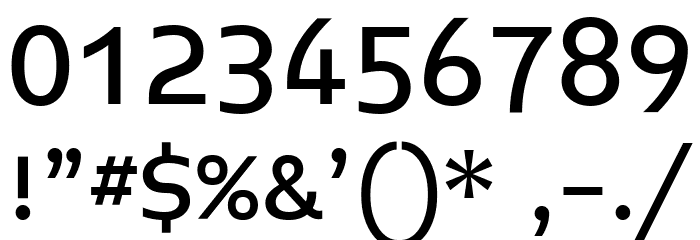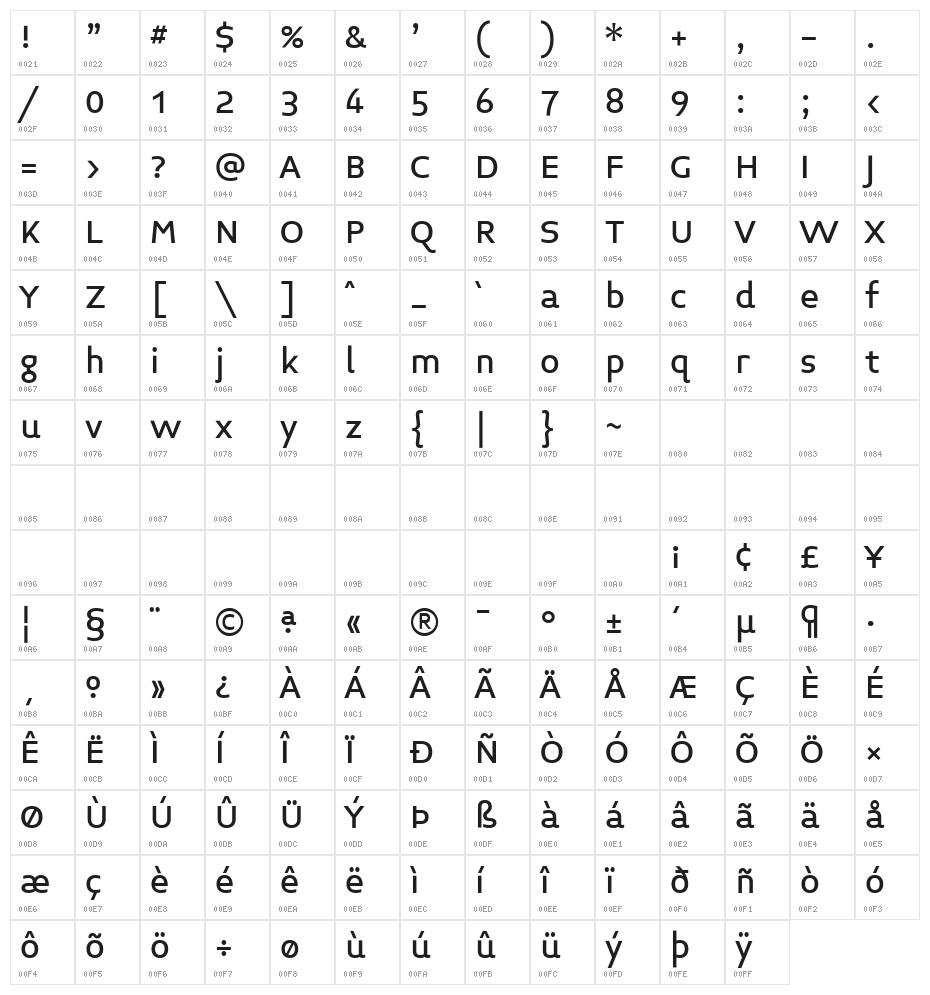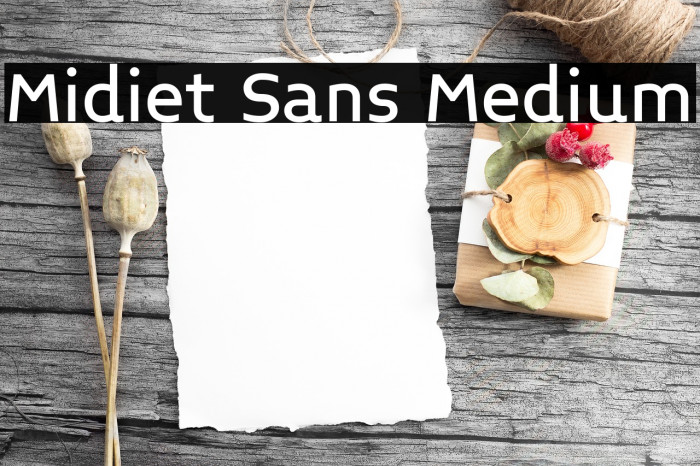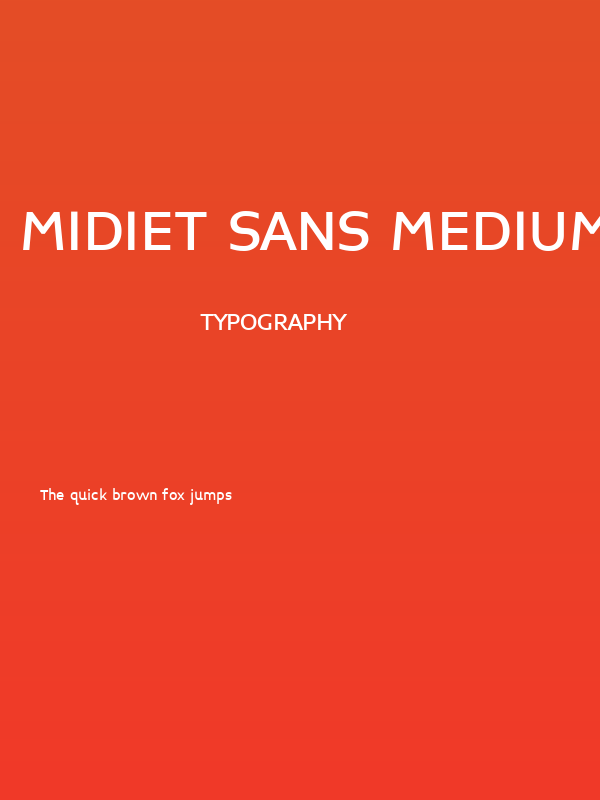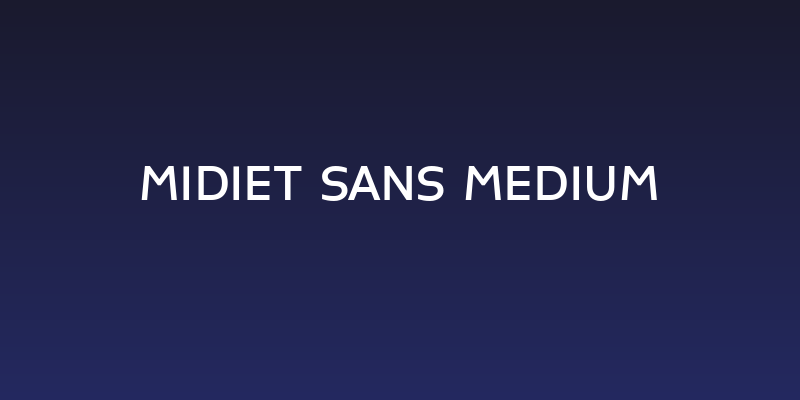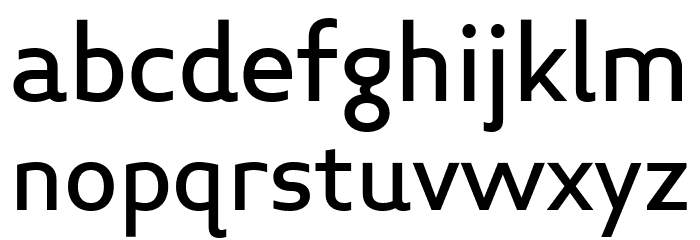
This font features a clean and modern sans-serif style, characterized by its geometric shapes and uniform stroke widths. The uppercase letters are bold and well-defined, providing a strong visual impact, while the lowercase letters maintain a consistent and harmonious appearance. The numerals are clear and easily distinguishable, making them suitable for various applications. Special characters are designed with simplicity and clarity in mind, ensuring they integrate seamlessly with the rest of the typeface. Overall, this font exudes a contemporary and professional aesthetic, making it versatile for both digital and print media.
Use CaseHeadlines, Body text, Logos
Proposed ProjectsIdeal for branding, web design, corporate materials, and editorial layouts.